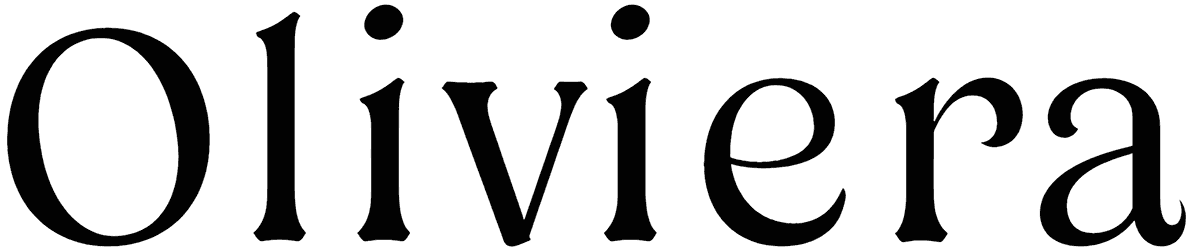
Quitees Shine Font
Lock-on Resource Boy because we offer you all sorts of different fonts so you can find the right one for your content. For example, Quitees Shine is a serif font that can bring sophistication and elegance to your content. This font can be a great help by providing both uppercase and lowercase alphabets except for the numbers and punctuation marks.
Designed by: Suamzu Art